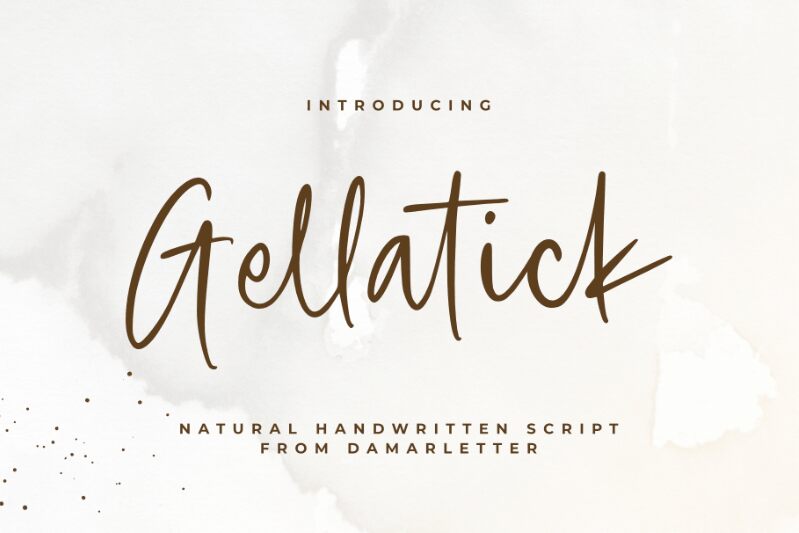
Gellatick font, designed by Ardian Nuvianto of Damarletter, exudes an authentic handwritten charm that captures the essence of spontaneity and creativity. Its flowing strokes and elegant curves invite a sense of warmth, making it perfect for personal branding projects or artistic endeavors.
The unique characteristics, such as its expressive flair and dynamic presence, elevate Gellatick beyond conventional typefaces. This delightful script dances across the page with a lightness that feels inviting yet highly stylized.
Ideal for invitations, social media graphics, or any design needing a touch of personality, Gellatick stands out in spaces where connection and originality matter most. Its visual appeal seamlessly blends casual elegance with artistic expression, making it an excellent choice for contemporary design applications.